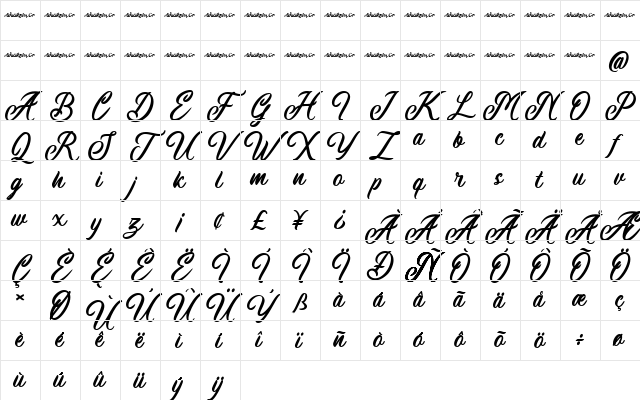
MachineatDemo Regular Free Font
MachineatDemo Regular
Foundry: Wacaksara Co.
Design Context for MachineatDemo
MachineatDemo is a composed and adaptable typeface that performs quietly and consistently across a wide range of design contexts.